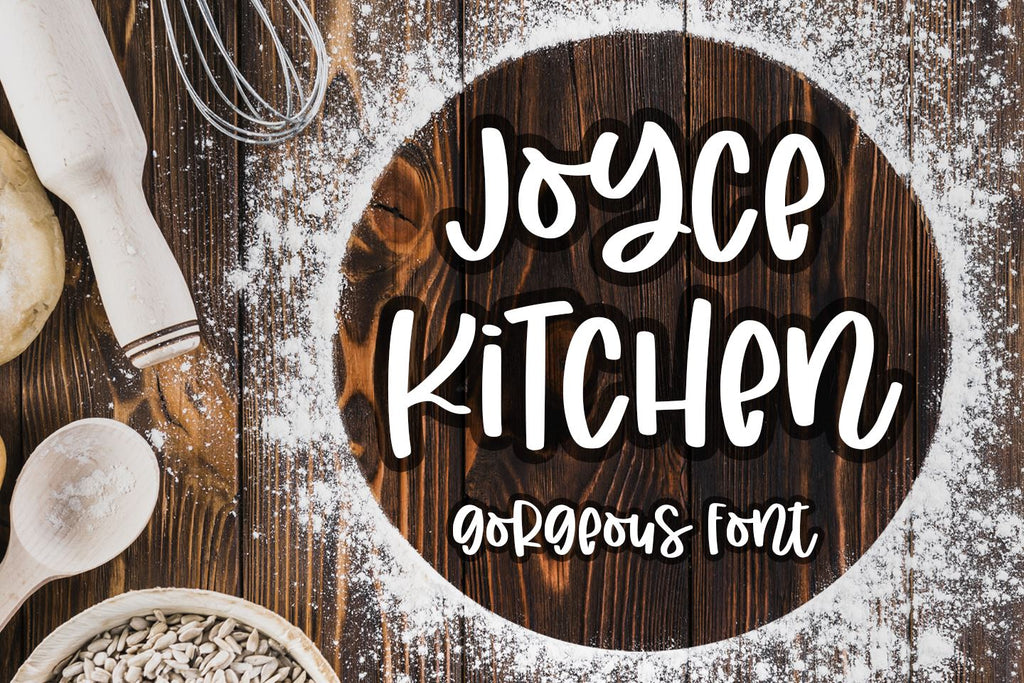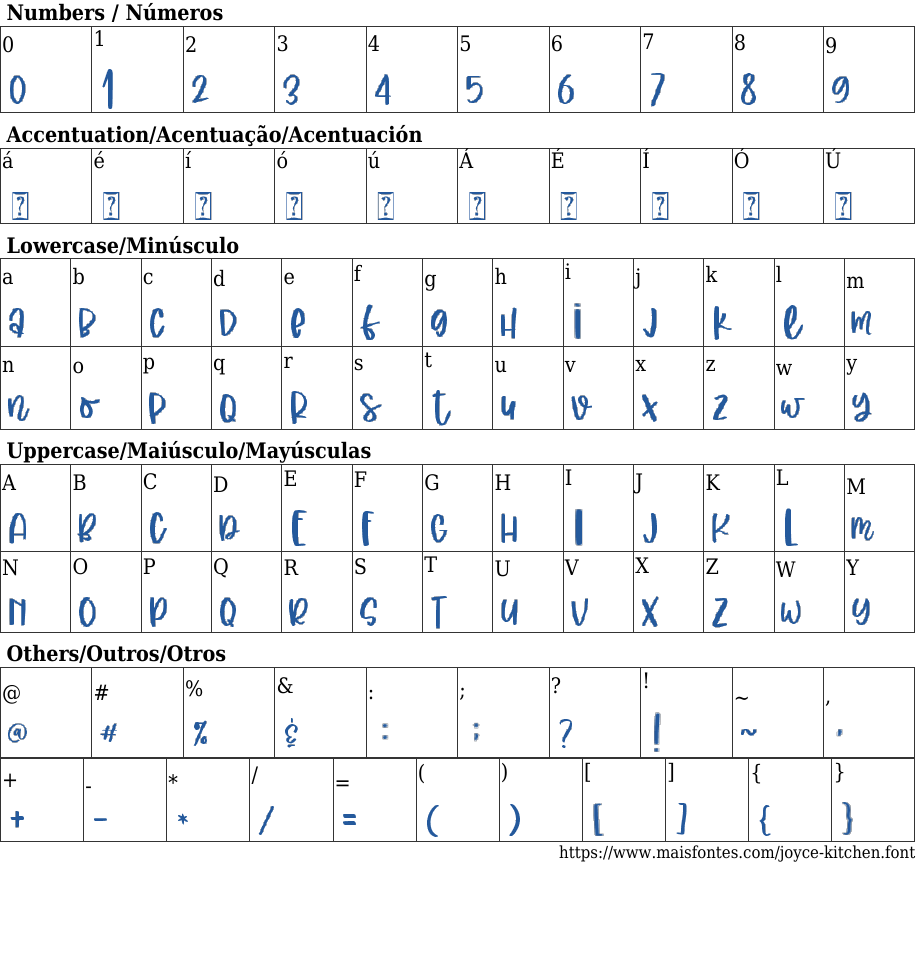
Joyce Kitchen Font . Free download of joyce kitchen font. If you want to use for commercial project, please purchase it on the. Experience the joyce kitchen regular font on windows, mac, and linux with our instant preview feature. A playful, casual handwritten font with smooth, rounded edges. If you want to use. This fonts license is free for personal use only with limited features. 24,405 downloads (5 yesterday) free for personal use. Click now to create a custom image with your own words that you can download. This font features a playful and casual handwritten style with smooth,. See how joyce kitchen regular looks.
If you want to use for commercial project, please purchase it on the. If you want to use. This font features a playful and casual handwritten style with smooth,. Free download of joyce kitchen font. A playful, casual handwritten font with smooth, rounded edges. This fonts license is free for personal use only with limited features. 24,405 downloads (5 yesterday) free for personal use. Click now to create a custom image with your own words that you can download. See how joyce kitchen regular looks. Experience the joyce kitchen regular font on windows, mac, and linux with our instant preview feature.